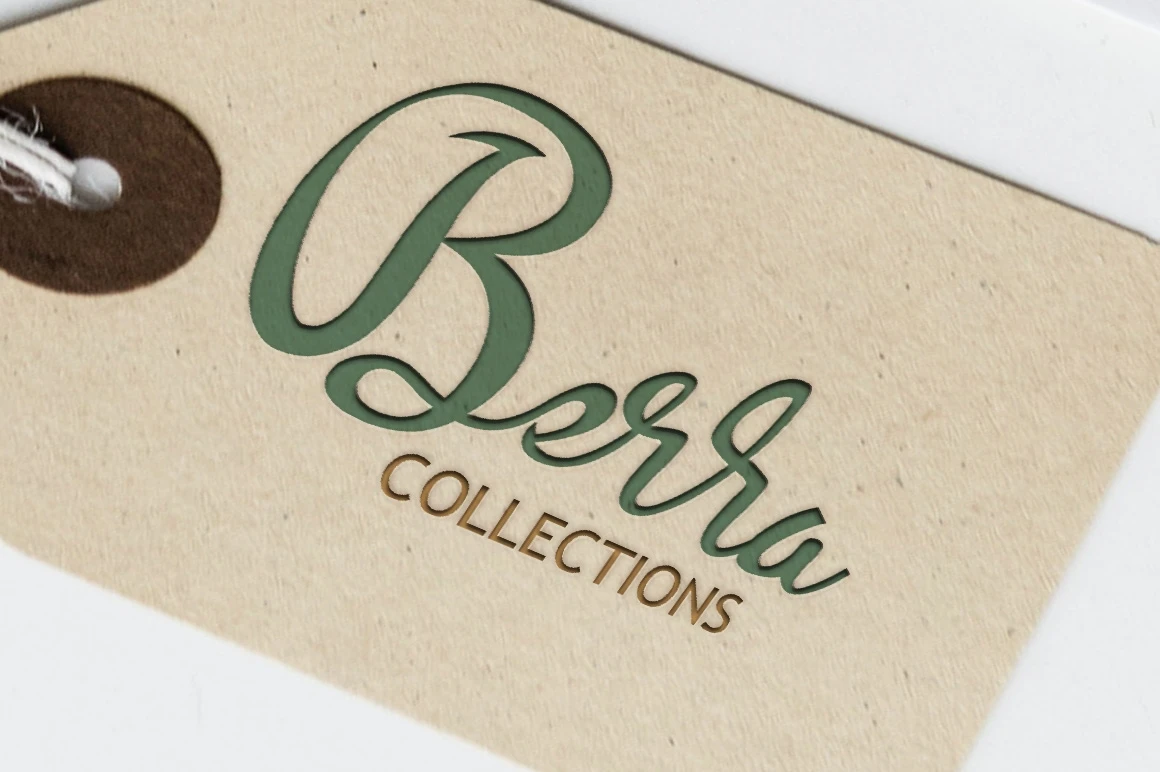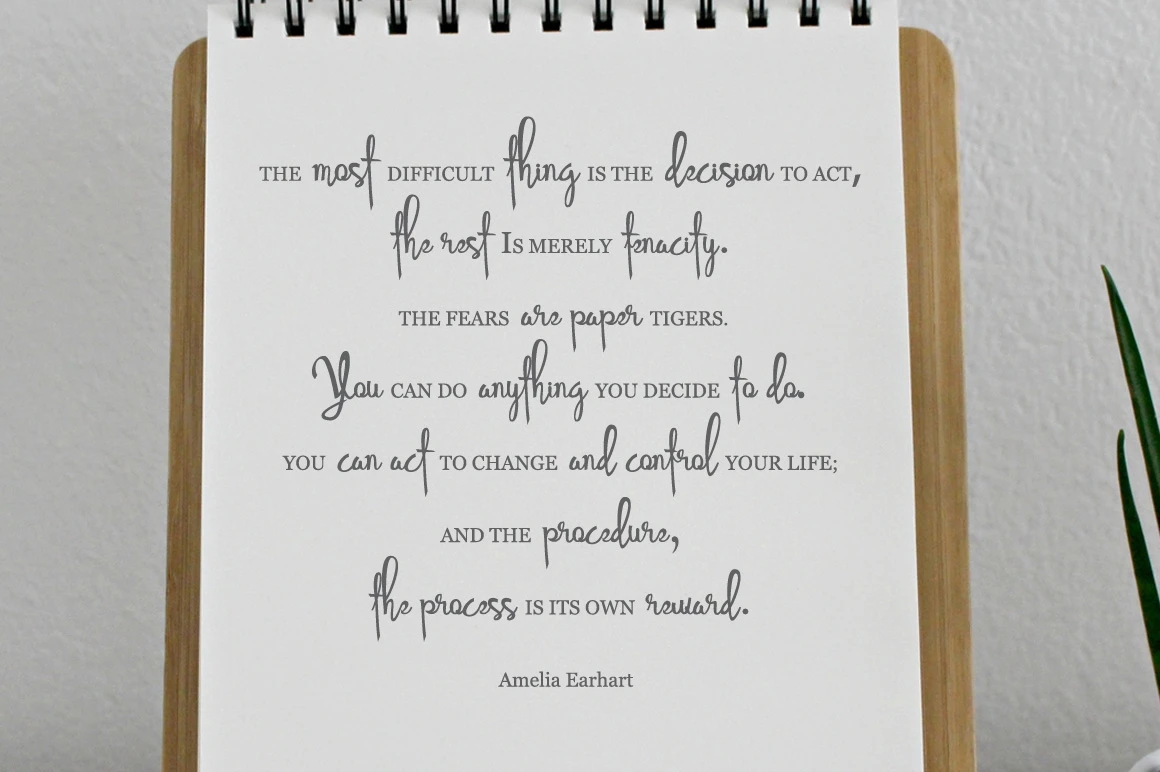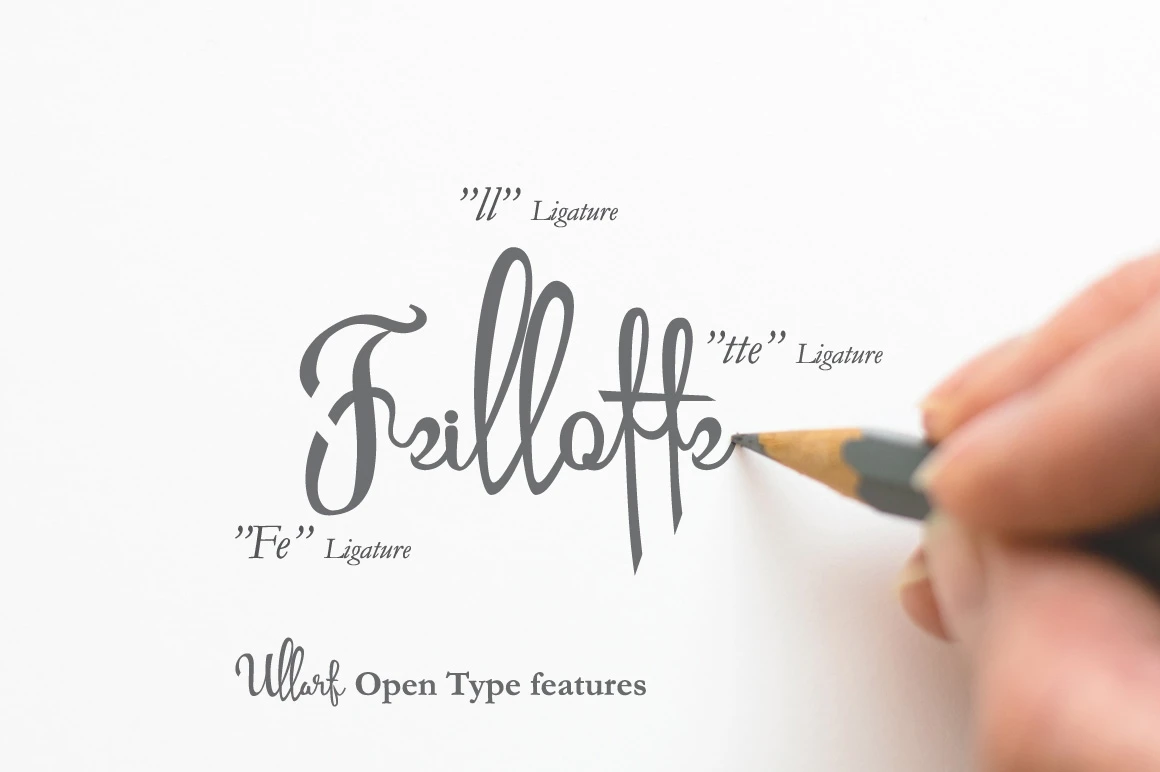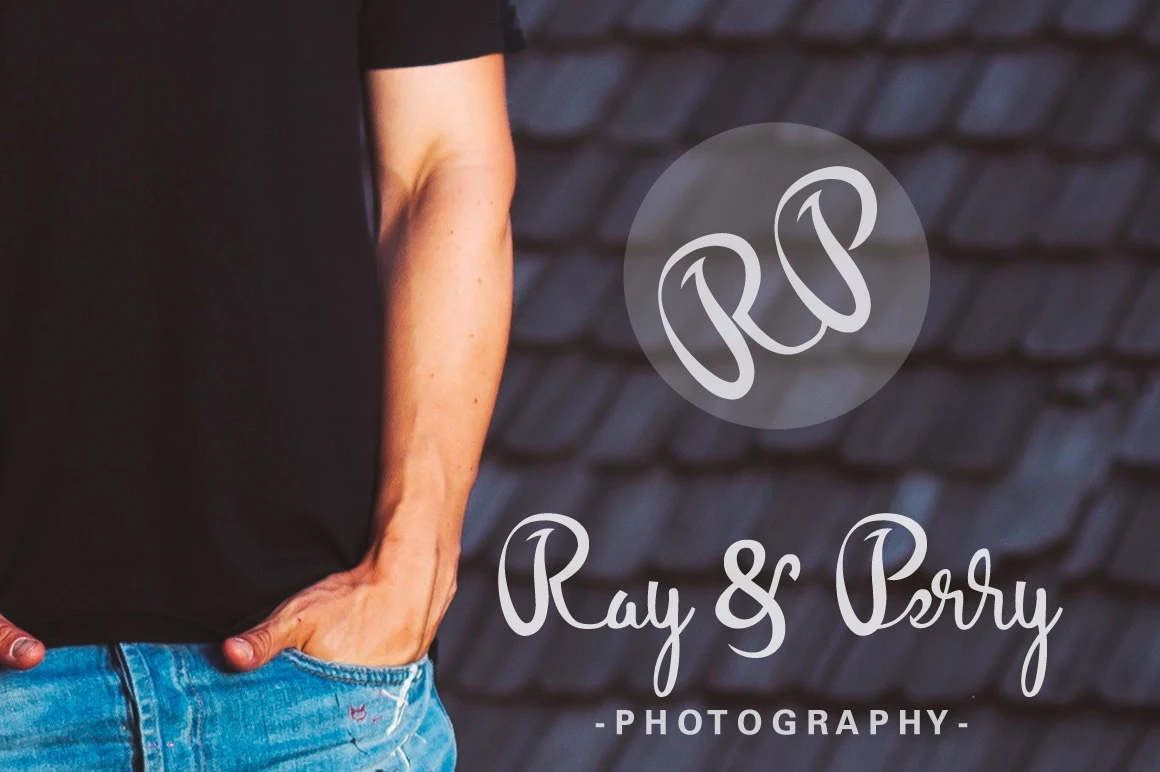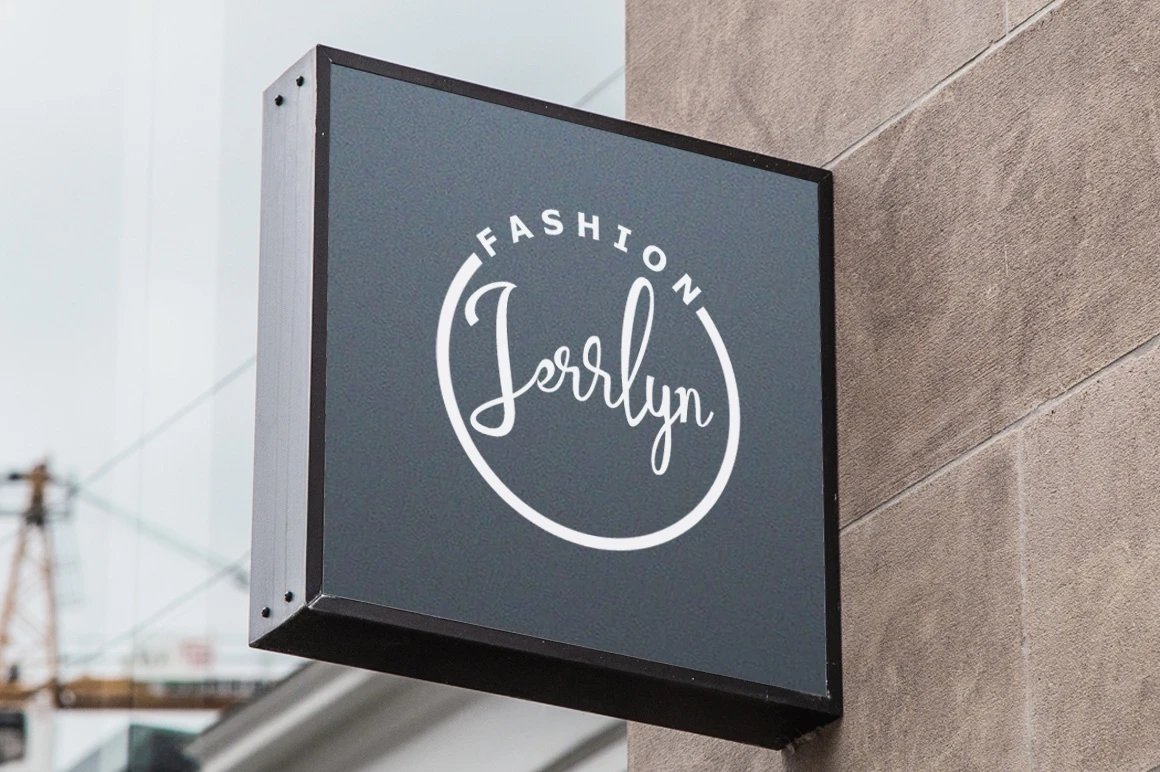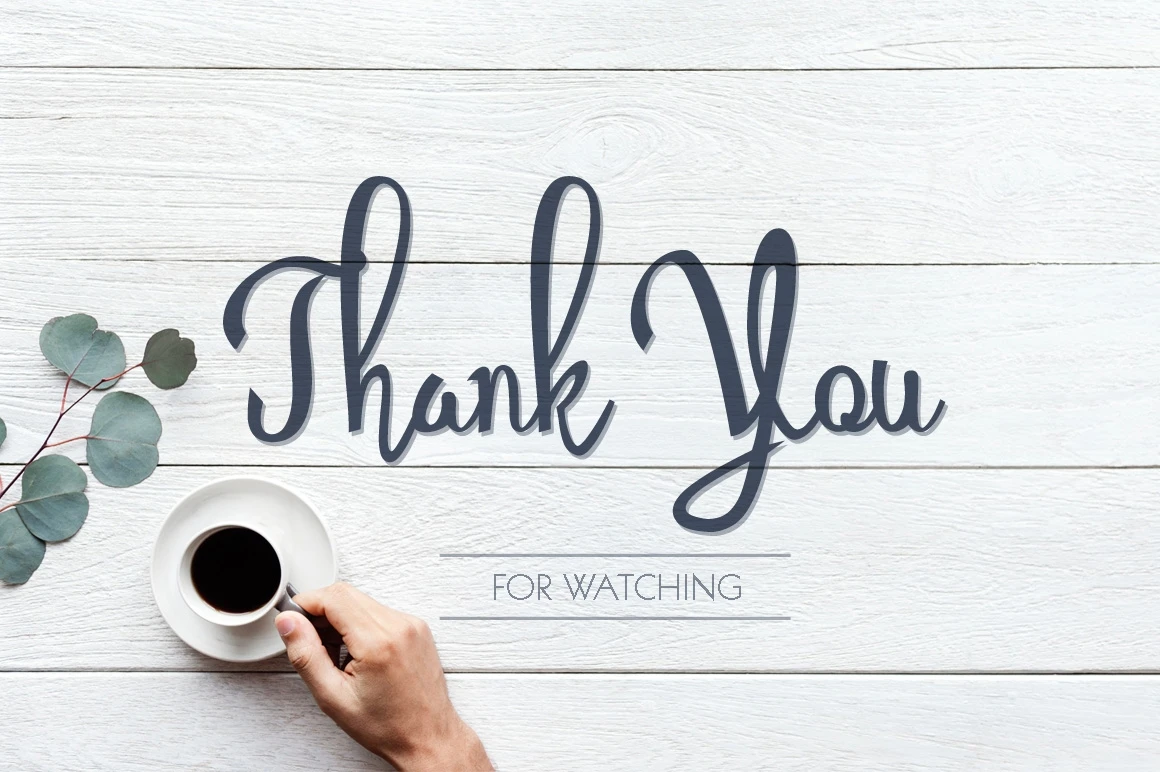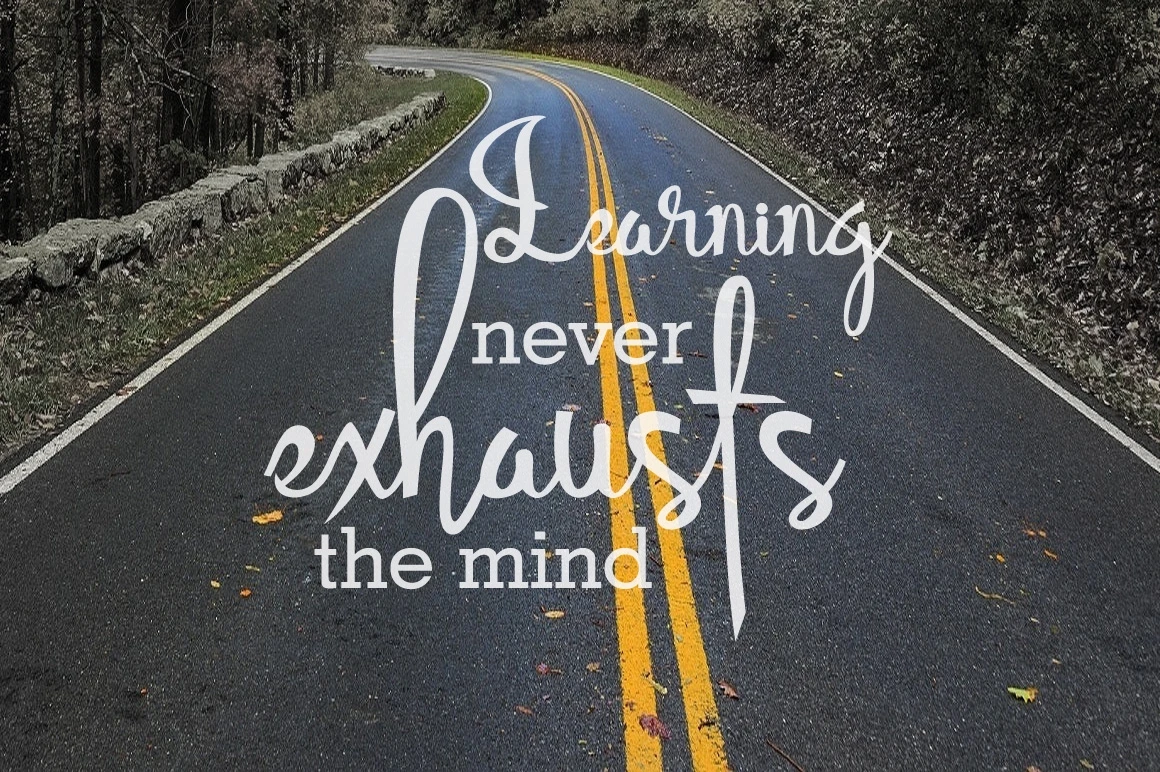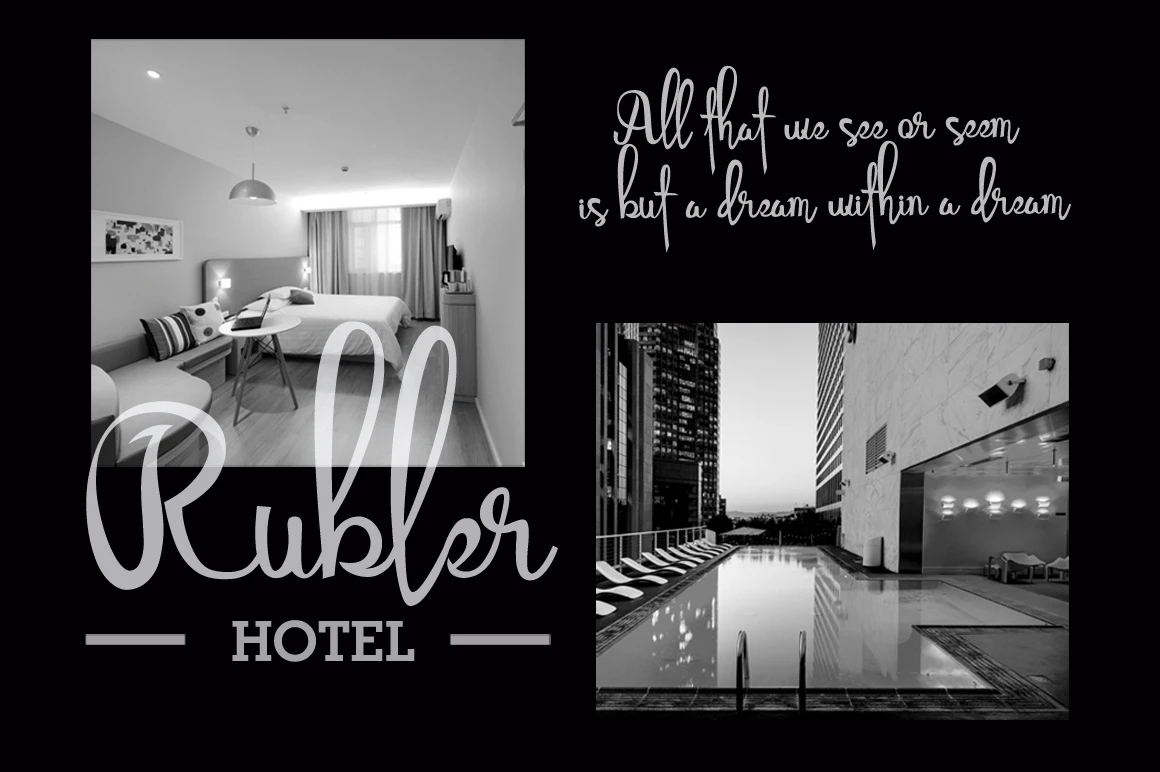
Ullarf is a lovely script font that is perfect for branding, headers, product packaging, wedding invites, card and many other way.
Here all of Ullatf's Features :
- Uppercase A-Z
- Lowercase a-z
- Numbers 0-9
- Punctuation
- Custom Ligatures
- Alternates
- Multilingual support